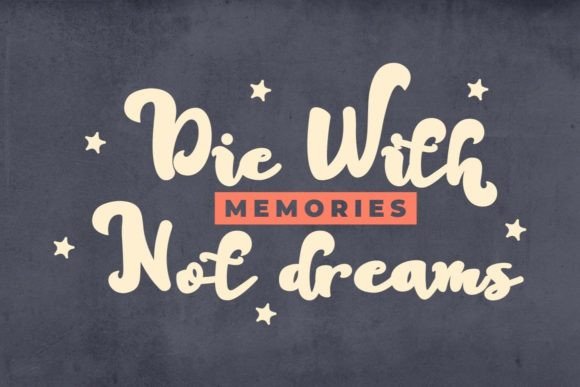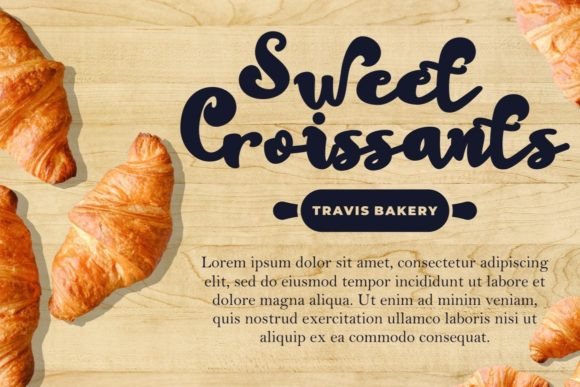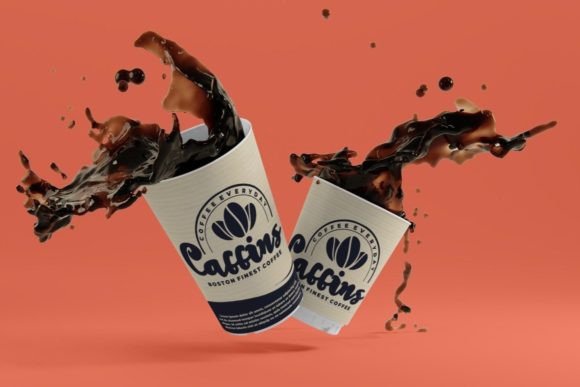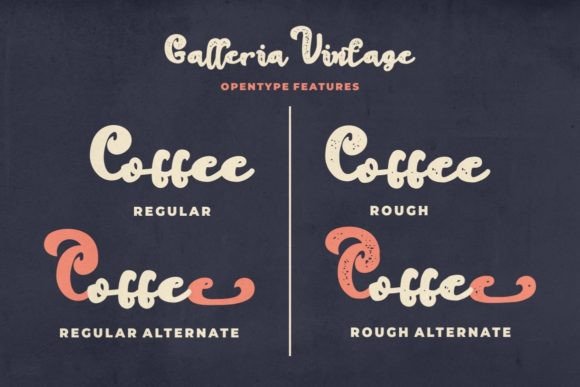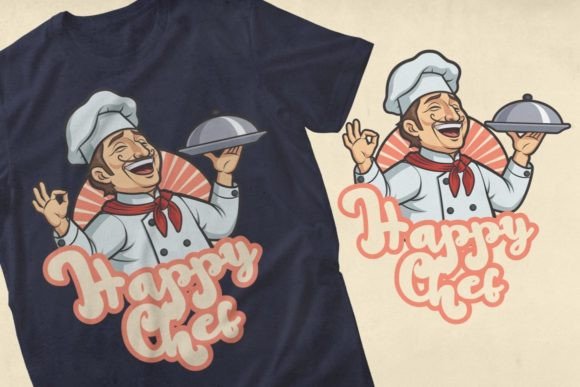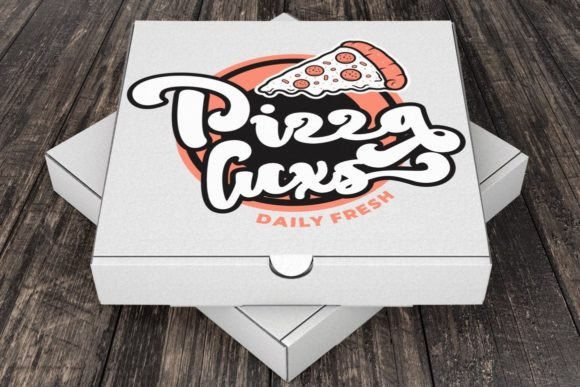
Unleash the Charm of Yesteryear with Galleria Vintage Font
Have you ever found yourself rummaging through a dusty old trunk in your attic, uncovering hidden treasures and forgotten memories? That’s exactly the kind of creative spark that the Galleria Vintage Font is designed to evoke. This bold vintage script font is the perfect blend of elegance and nostalgia, perfect for designers who want to add a touch of luxury and whimsy to their projects.
With its unique combination of vintage and luxury aesthetics, the Galleria Vintage Font is an invaluable asset for designers working on projects with retro or vintage themes. Whether you’re creating a logo, branding, poster, or packaging design, this font is sure to add a level of sophistication and charm that will leave a lasting impression on your audience.
Galleria Vintage Font Key Features
- Font Family: Galleria Vintage Font
- Unique Characteristics: Distressed, vintage, and weathered effects, with subtle texture and grunge elements
- Font Weight: 6 weights (Light, Book, Regular, Medium, Bold, Black) for versatility
Galleria Vintage Font Review
I recently had the chance to work with the Galleria Vintage Font, and I have to say, it’s a real mixed bag. Let’s start with what works well ✨.
- Unique, vintage aesthetic that’s perfect for adding a touch of nostalgia to your designs.
- Wide range of weights and styles to choose from, making it easy to find the perfect fit for your project.
- High-quality font files that render well on a variety of devices and platforms.
However, there are a few limitations to keep in mind ⚠️.
- Some of the font weights can feel a bit inconsistent, with varying levels of boldness and legibility.
- The font’s vintage aesthetic can also make it feel a bit dated, which may not be ideal for modern designs.
- Some users have reported issues with font rendering on certain operating systems and devices.
Overall, the Galleria Vintage Font is a solid choice for designers looking for a unique, vintage aesthetic. While it’s not perfect, its strengths far outweigh its weaknesses, making it a great addition to any design toolkit.
The Galleria Vintage Font is ideal for creating a nostalgic or retro aesthetic in designs such as:
- Invitations and event materials
- Photography captions and descriptions
- Marketing materials and advertisements
Alternatives to Galleria Vintage Font
Playfair Display is a luxurious and elegant serif font that is perfect for high-end designs, such as luxury brands, wedding invitations, and fine art prints. It has a similar vintage feel to Galleria Vintage Font but with a more refined and sophisticated look.
Comparison: While Galleria Vintage Font has a more distressed look, Playfair Display is cleaner and more polished. Use Playfair Display when you need a sophisticated and elegant look, and Galleria Vintage Font when you want a more rustic and vintage feel.
Pacifico is a beautiful and elegant script font that is perfect for designs that require a touch of sophistication and elegance. It has a similar vintage feel to Galleria Vintage Font but with a more modern and refined look.
Comparison: While Galleria Vintage Font has a more distressed look, Pacifico is smoother and more polished. Use Pacifico when you need a sophisticated and elegant look, and Galleria Vintage Font when you want a more rustic and vintage feel.
Great Vibes is a beautiful and elegant script font that is perfect for designs that require a touch of sophistication and elegance. It has a similar vintage feel to Galleria Vintage Font but with a more modern and refined look.
Comparison: While Galleria Vintage Font has a more distressed look, Great Vibes is smoother and more polished. Use Great Vibes when you need a sophisticated and elegant look, and Galleria Vintage Font when you want a more rustic and vintage feel.